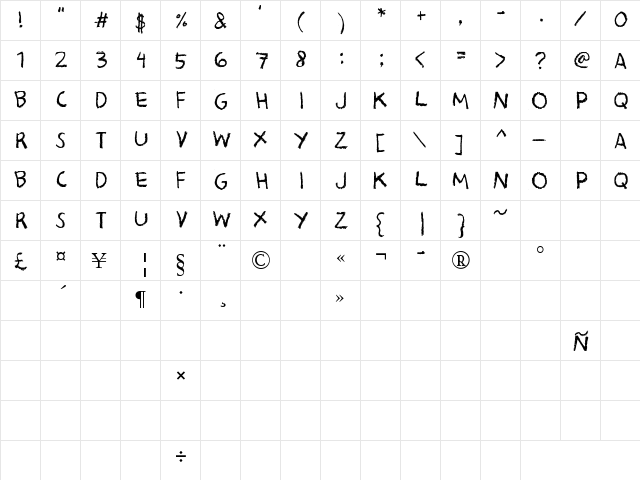
Bacon Kingdom Regular
Design Context for Bacon Kingdom Typeface
Bacon Kingdom is a composed and adaptable typeface that performs quietly and consistently across a wide range of design contexts.
Pro Tip: Use Bacon Kingdom in both headline and body roles to test its range before committing to a single application.